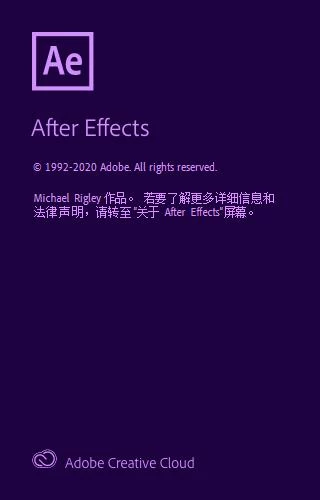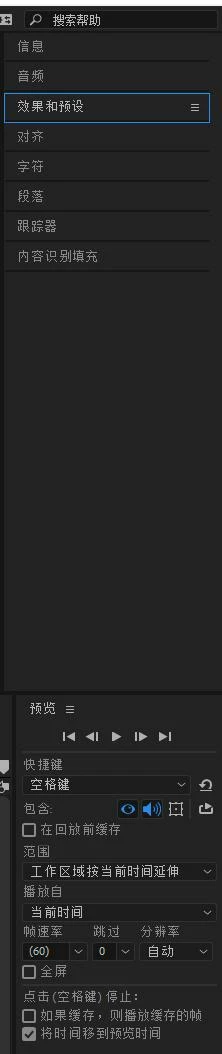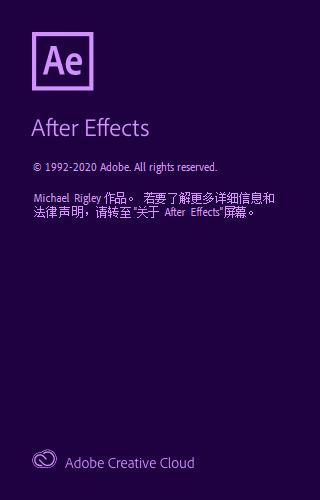
After Effects is still using very old UI font for Simplified Chinese
The Chinese font for After Effects is still using SimSun which was used by Windows XP and earlier system
Such old fonts are out of place in a modern user interface
Microsoft has been using a new smooth font called "Microsoft YaHei" for Simplified Chinese since Windows Vista
Audition has changed the font to Microsoft YaHei since CC 2019
Hope After Effects can change to the new font, too